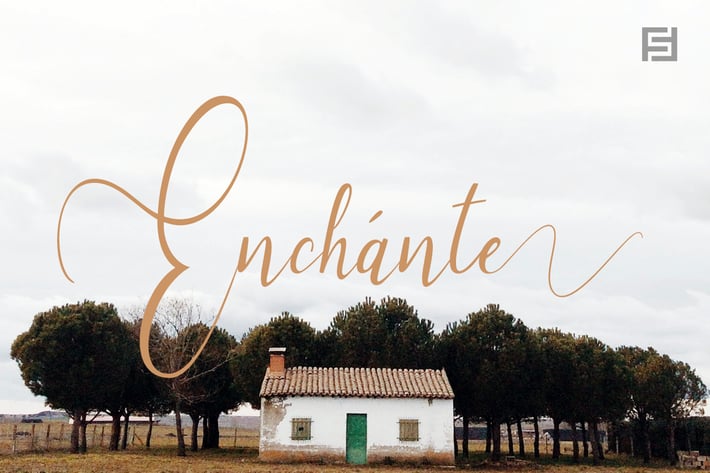
Enchante - Handwritten Font with Stylistic Sets
Enchante is the handwritten masterpiece typeface for luxury / branding / logotype / wedding invites / greeting cards / promotional graphics. Enchante typeface is completely handmade with more than 300 hours of artistic craftsmanship bringing perfection and aesthetics at its level best. The typeface comes with the following features:
OpenType Features & Stylistic Sets
The typeface contains 400 glyphs beautifully handcrafted with perfection.
122 stylistic alternatives with 70 lowercase and 52 uppercase letters.
61 unique Swashes & Lines arranged in separate font file to enhance ease of use and efficiency.
Powerful OpenType features including multi-set stylistic alternatives and ornaments.
The typeface comes with 2 fonts (Normal, Swashes) so you can easily add decorative elements by simply choosing the Swashes version of the font. The stylistic alternatives and ornaments can be selected via character options within any editing software such as Illustrator, Photoshop, Inkscape etc.
Advanced Kerning & Essential Ligatures:
We have performed advanced, in-depth kerning to make sure the font looks amazing on all possible letter combinations.